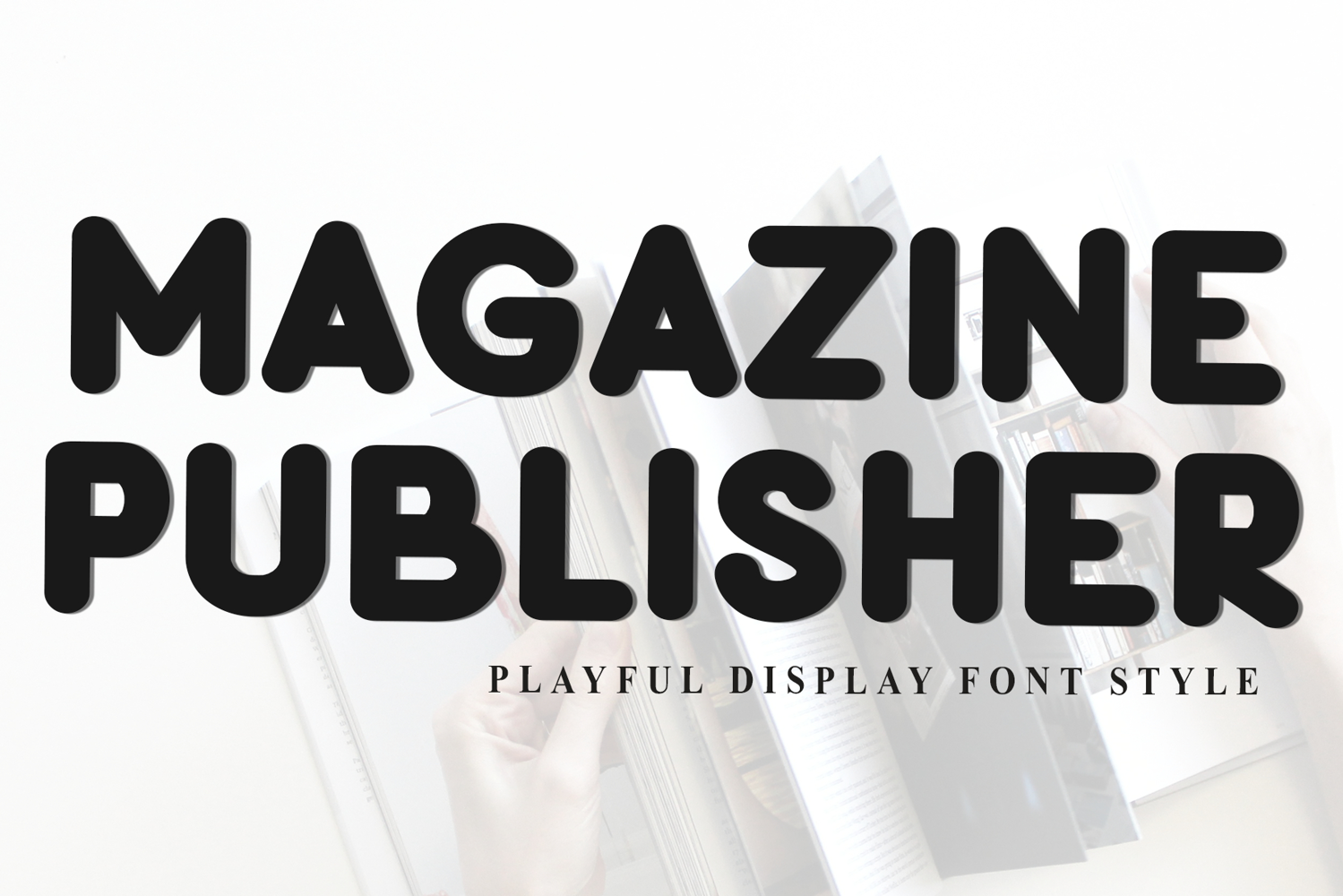
Magazine Publisher
Magazine Publisher is a beautiful and eye-catching font designed with a soft, unique touch. Its distinctive strokes give it a special character, making it meaningful and versatile for future use. With various characters, it’s perfect for design projects, crafts, and other creative works.